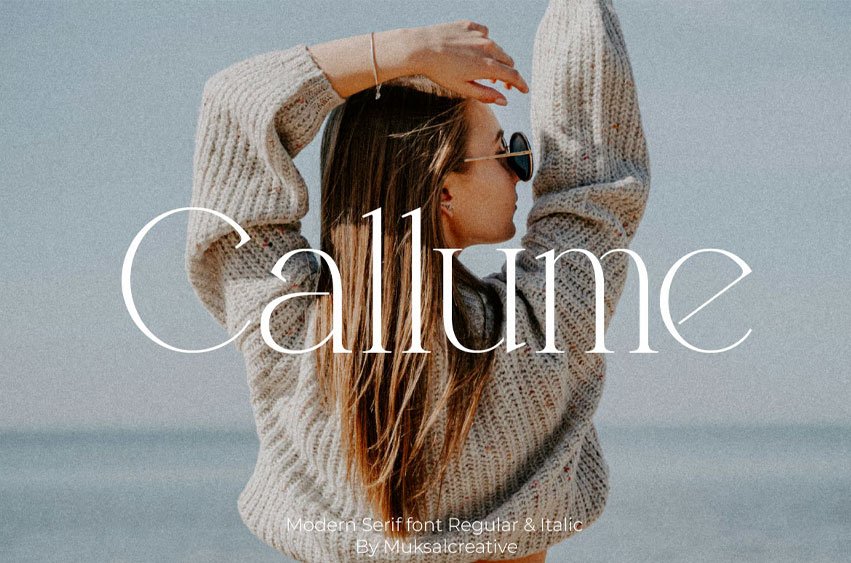
Callume Font is a refined modern serif display typeface crafted to bring elegance and distinctive character to your design projects. With its polished serifs and sophisticated proportions, Callume is ideal for branding, premium packaging, editorial headlines, logotypes, and digital headlines. This font includes both uppercase & lowercase letters, numerals & punctuation, and supports extended Latin characters — offering the versatility you need across print and web applications.